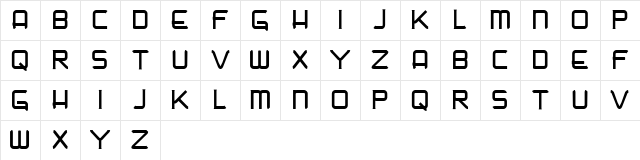
Nadir Regular
Design Context for Nadir
Nadir is a composed and adaptable typeface that performs quietly and consistently across a wide range of design contexts.
Pro Tip: Use Nadir in both headline and body roles to test its range before committing to a single application.